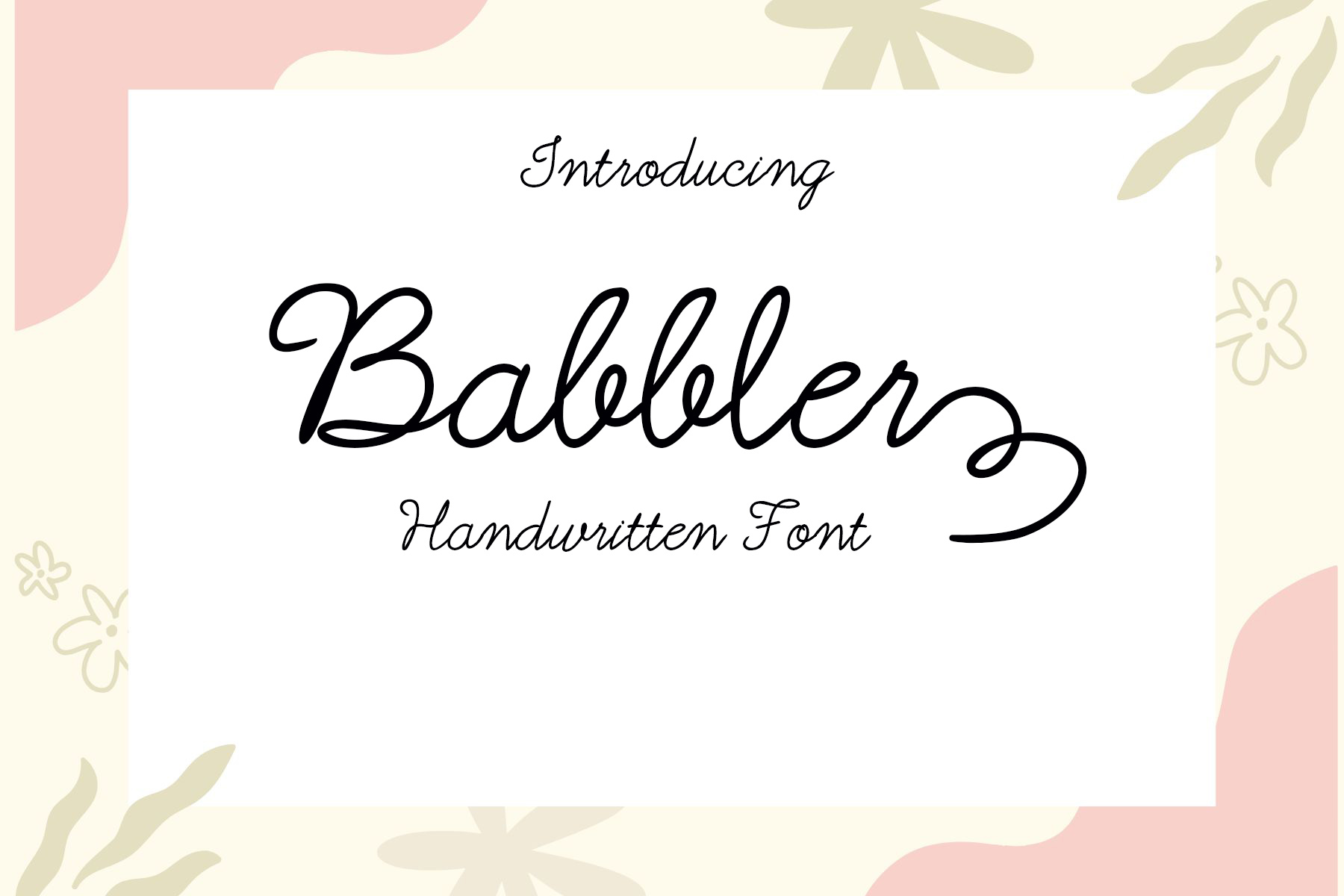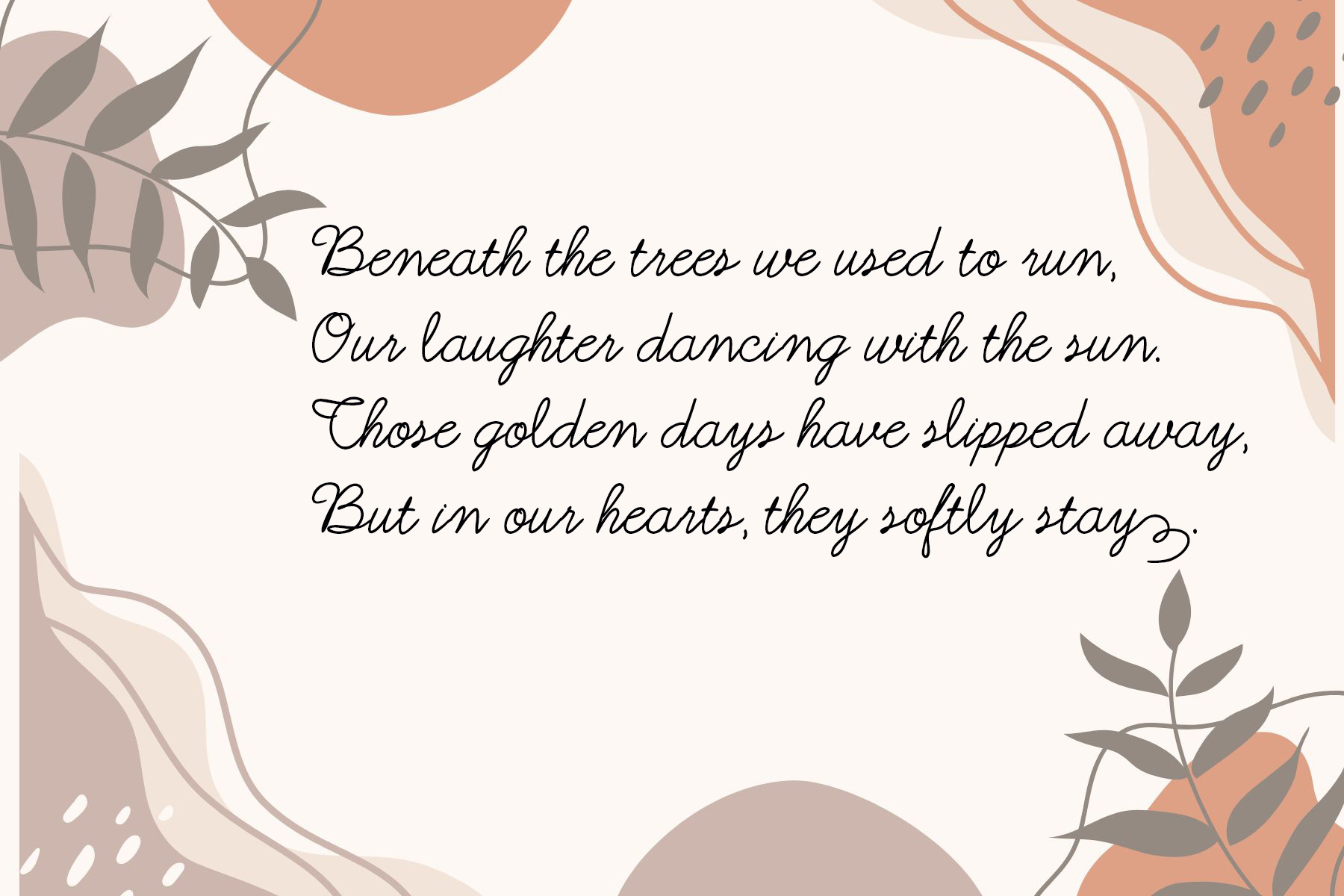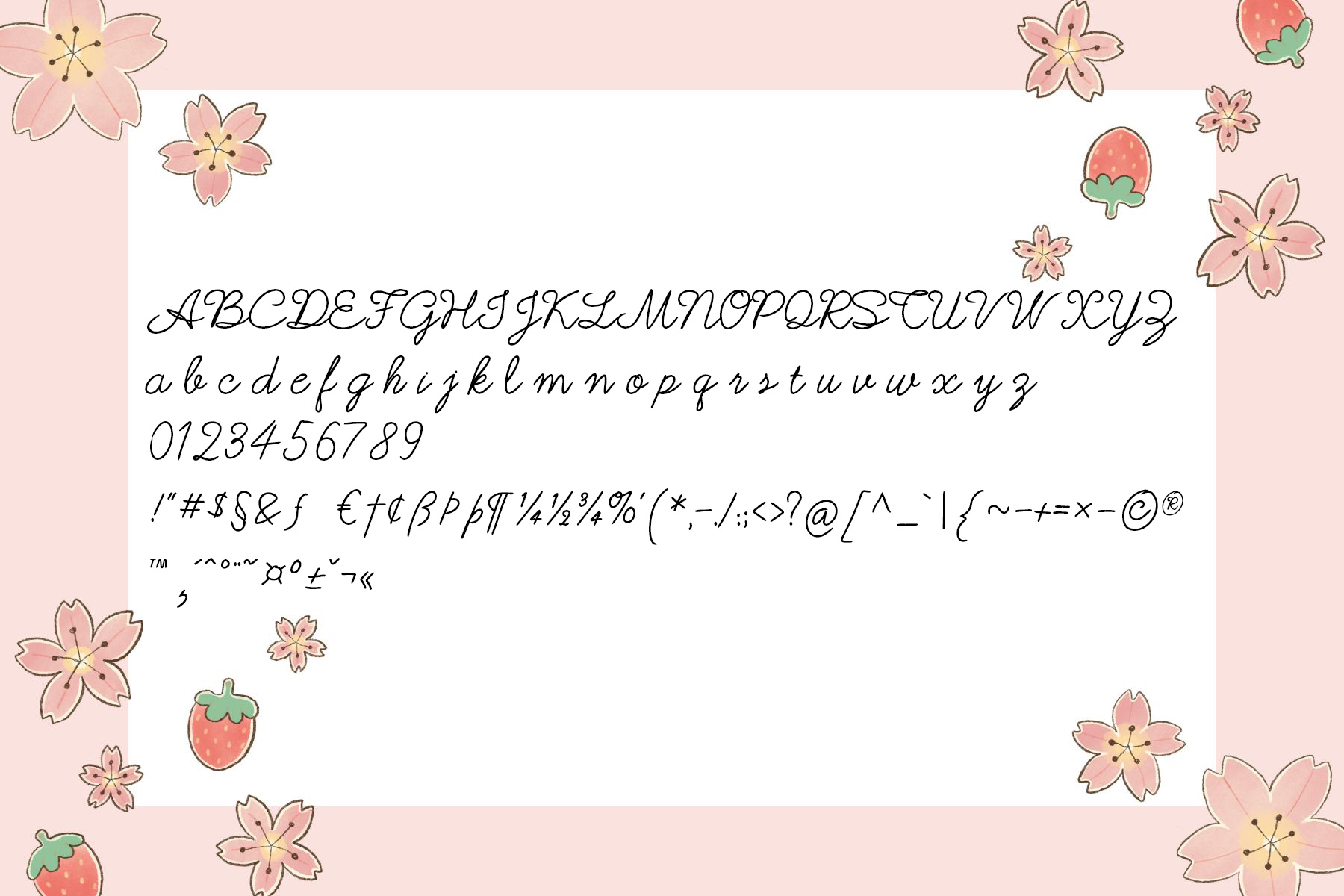
Introducing Babbler!
A charming handwritten font that captures the spirit of simple creativity. With playful and natural strokes, Babbler brings a touch of elegance and warmth to your project — perfect for logos, quotes, branding, packaging, or anything that needs a dash of heartfelt emotion.